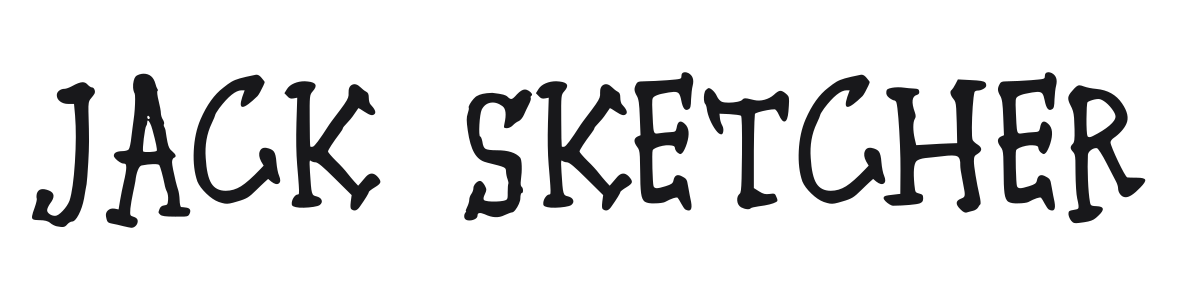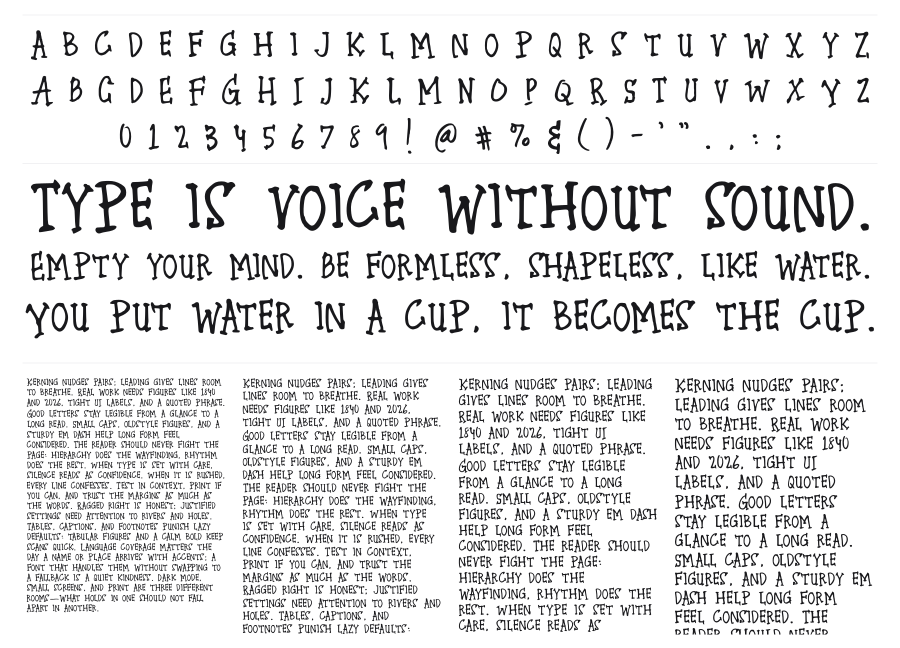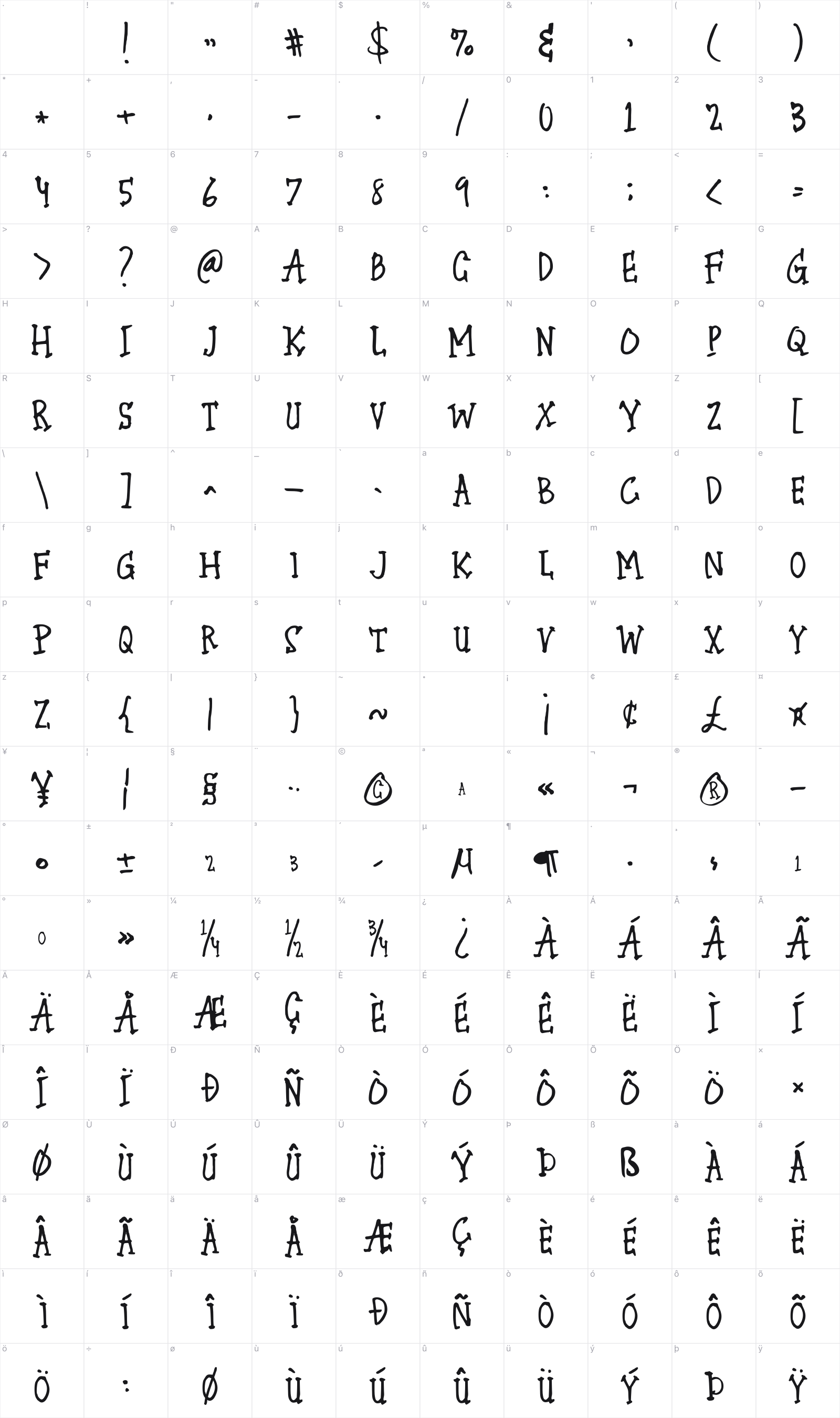
Jack Sketcher
Jack Sketcher is a hand-drawn serif display font with rough, spiky strokes that look like they were sketched with an unsteady hand. Each character carries visible irregularities in weight and edge texture, giving it a woodblock or carved-stamp quality. It works well anywhere you want warmth and grit over polish.